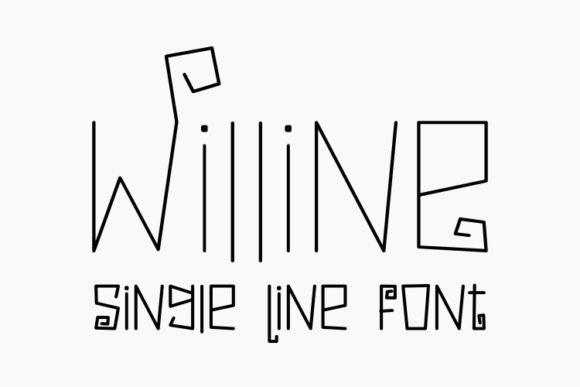
Dive into the world of typography with Willine Font, the ultimate display font that transforms your creative visions into captivating realities.
An Ode to Simplicity:
Willine Font is a minimalist masterpiece, a symphony of clean lines and delicate curves. Its thin, smooth strokes dance across your designs, exuding an air of elegance and sophistication. This font is the perfect canvas for your artistic expression, allowing your message to shine through with clarity and impact.
A Font for Every Occasion:
With Willine Font at your disposal, the possibilities are endless. Whether you're crafting logos that demand attention, designing social media graphics that pop, or creating eye-catching website layouts, this font will elevate your projects to new heights. Its versatility knows no bounds, making it a must-have tool for any creative professional.
Unlock Your Cricut Potential:
For those who love the art of crafting with Cricut machines, Willine Font is your secret weapon. Its crisp, precise lines cut cleanly, ensuring your vinyl projects turn out perfectly every time. Say goodbye to pixelated designs and embrace the joy of flawless, professional-looking creations that will leave your friends and family in awe.
A Splash of Personality:
Willine Font isn't just another font; it's an extension of your personality. Whether you're bold and daring or prefer a touch of understated elegance, this font will reflect your unique style and make your designs stand out from the crowd. Let your creativity flow and experience the joy of expressing yourself through typography.
The Perfect Font for Cricut Vinyl:
Are you passionate about crafting unique designs with your Cricut machine? Willine Font is tailored specifically for your creative journey. Its clean, modern lines and crisp edges translate beautifully onto vinyl, resulting in flawless cuts and stunning designs that will make your projects shine. Unleash your imagination and transform ordinary objects into personalized masterpieces with Willine Font as your creative companion.